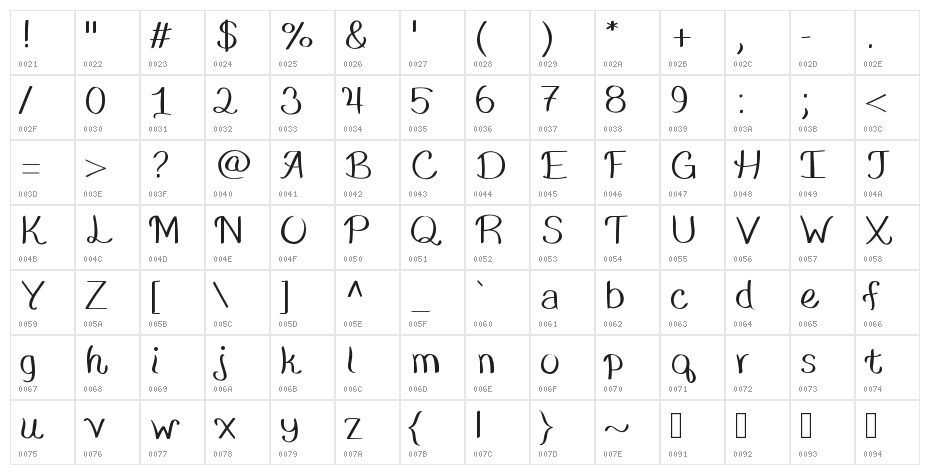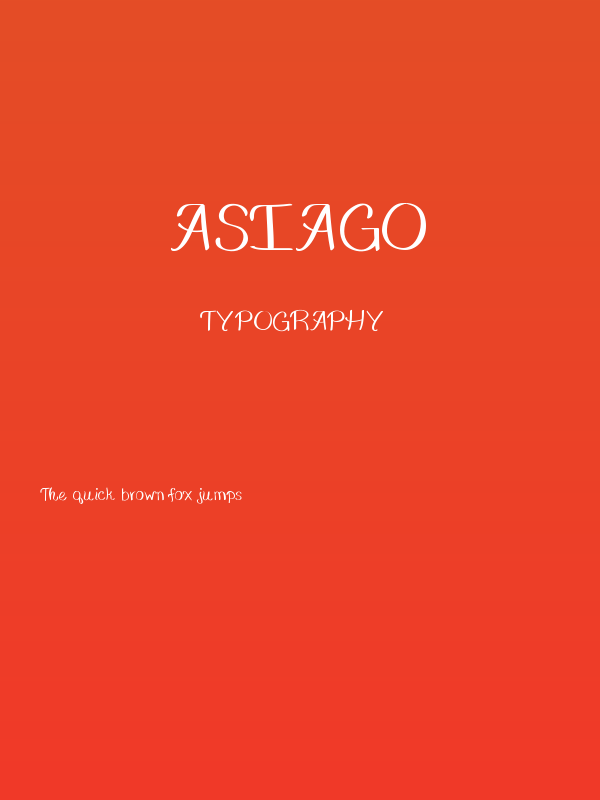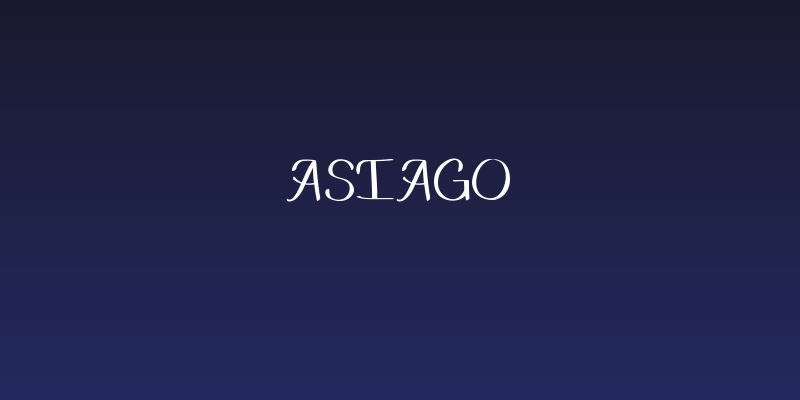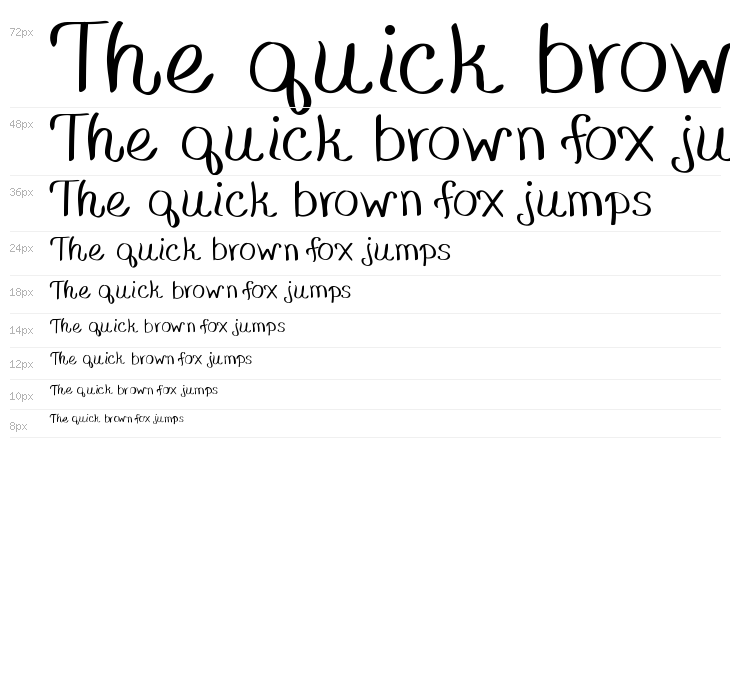
Asiago Font
Asiago Description
This font features a playful and whimsical style, characterized by its flowing, cursive-like strokes and a sense of movement. The uppercase letters exhibit a unique blend of curves and angles, giving them a distinctive personality. The lowercase letters maintain a consistent flow, with rounded forms and occasional loops that add to the font's charm. Numbers are bold and clear, ensuring readability while maintaining the overall playful aesthetic. Special characters are designed with the same attention to detail, seamlessly integrating into the font's style. This font is perfect for projects that require a touch of creativity and fun.
| Proposed Projects | Ideal for greeting cards, children's books, playful branding, and creative posters. |